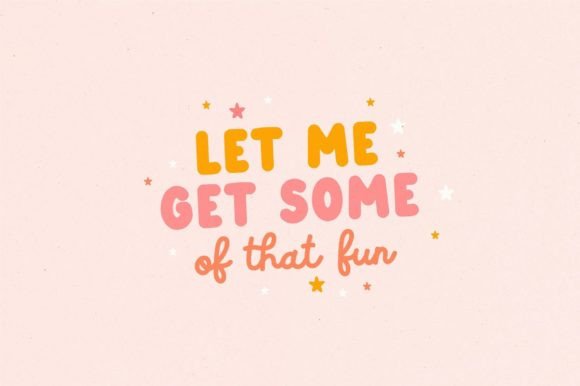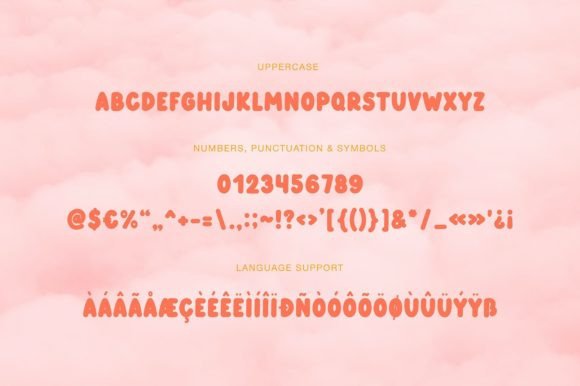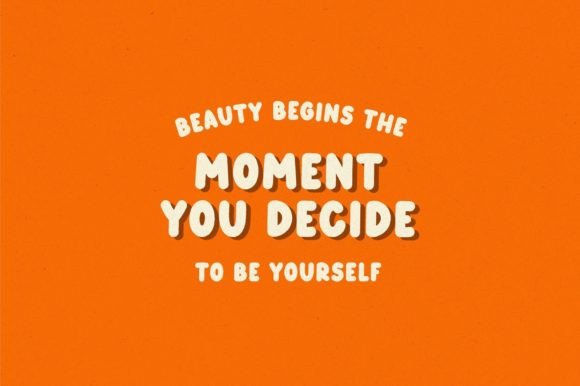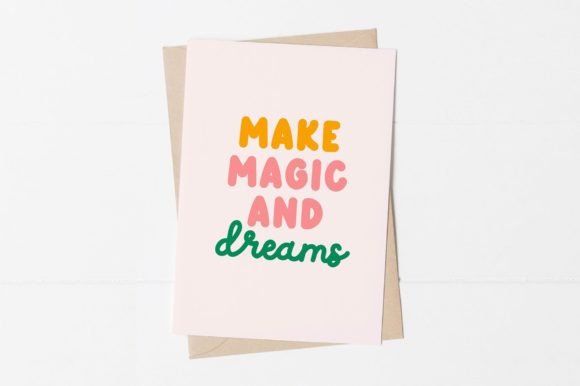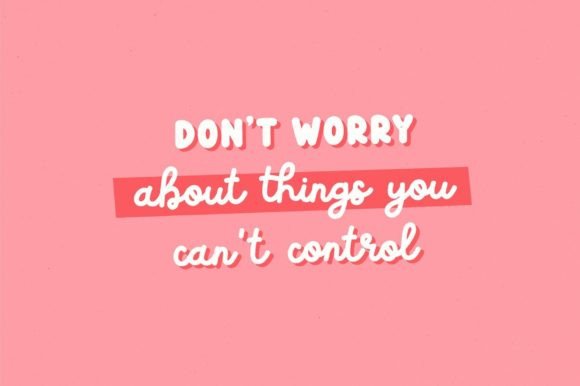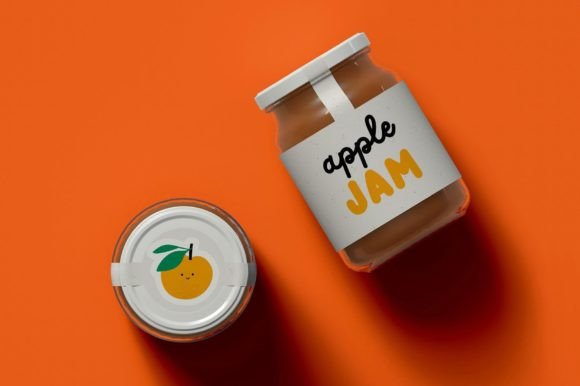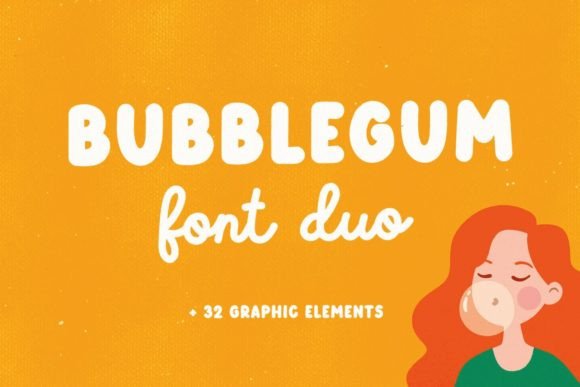
The Bubblegum Font: A Perfect Blend of Playful and Professional
I still remember the time I was working on a project for a children’s brand, and I was struggling to find the right font. The client wanted something fun and playful, but also professional and easy to read. I tried out numerous fonts, but none of them seemed to hit the mark. That’s when I stumbled upon the Bubblegum font. Its bold and expressive design immediately caught my attention, and I knew I had found the perfect fit.
- ✨ Easy to read: The thick and solid lines of the Bubblegum font make it easy to read, even at smaller sizes.
- ✅ Balanced design: The conservative bends in the font aren’t overwhelming to the eyes, making it perfect for long blocks of text.
- 🎉 Playful yet professional: The Bubblegum font strikes the perfect balance between playful and professional, making it suitable for a wide range of design projects.
While the Bubblegum font is amazing, there are a few things to keep in mind:
- ⚠️ Limited use of OpenType features: The Bubblegum font doesn’t have a wide range of OpenType features, which might limit its use in certain design projects.
- 🤔 Not suitable for body text: While the font is easy to read, it’s not the best choice for body text due to its bold and playful design.
Exploring OpenType Features, Glyphs, and Stylistic Alternates
The Bubblegum font supports OpenType features, glyphs, and stylistic alternates, which can add an extra layer of creativity to your designs. To access these features, you’ll need to use a software that supports OpenType, such as Adobe Photoshop or Illustrator.
Some of the OpenType features available in the Bubblegum font include:
- Stylistic alternates: These allow you to switch between different font styles, such as bold or italic.
- Glyphs: These are special characters that can be used to add decorative elements to your text.
The Backstory of the Bubblegum Font
The Bubblegum font was designed by a team of creatives who wanted to create a font that was both playful and professional. Inspired by the classic bubble gum brands of the past, they aimed to create a font that was fun, yet elegant. The result is a font that’s perfect for designs that need a bit of personality, but still want to look professional.
Q: What is the Bubblegum font?
A: The Bubblegum font is a bold and expressive font that’s perfect for designs that need a bit of personality.